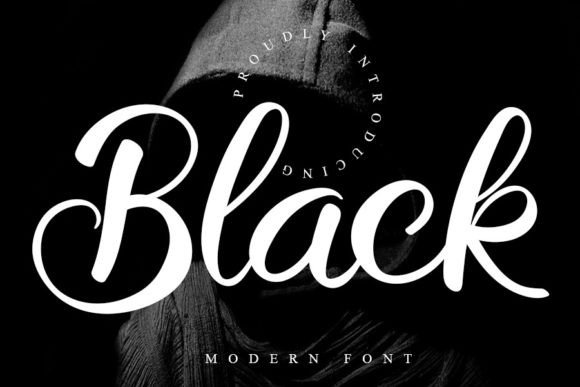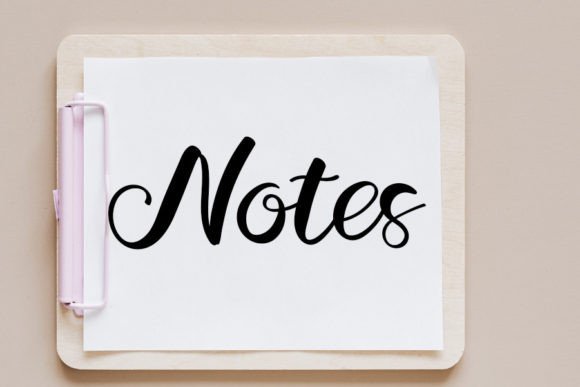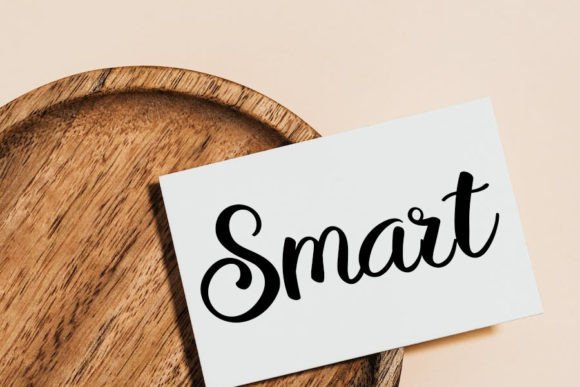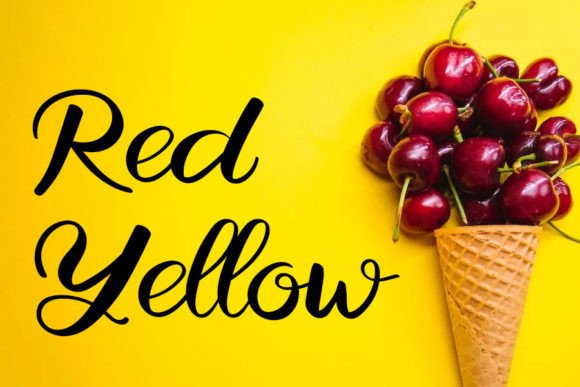
Black Font
Black is a neat and casual handwritten font. Whether you’re using it for crafts, digital design, presentations, or making greeting cards, this font has the potential to become your favorite go-to font, no matter the occasion!